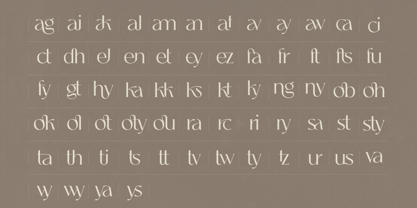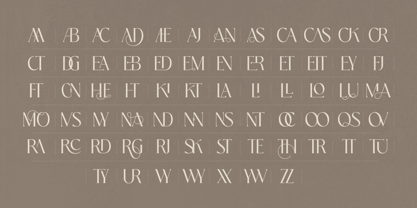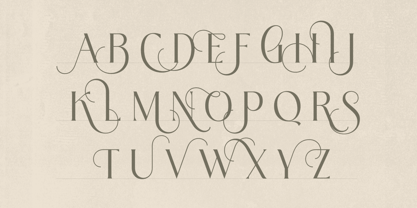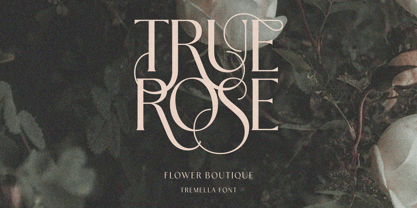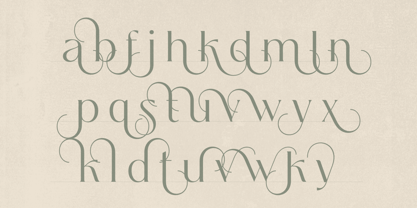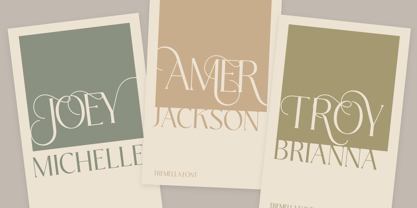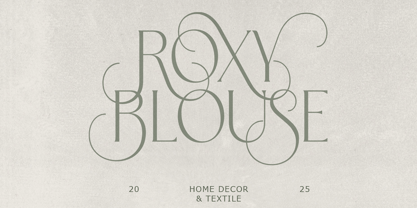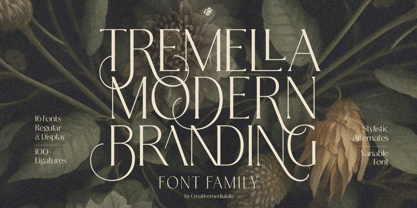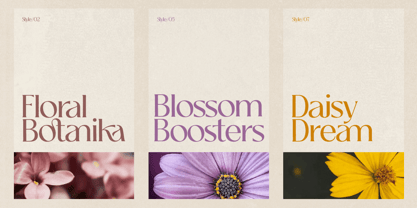
Tremella
by Creativemedialab
The Tremella Font Family was designed by Kadek Mahardika and published by Creativemedialab. Tremella contains 17 styles and family package options. More about this family
Tremella - Modern Serif Font
a serif font with a modern twist. It has a clean, simple look, but still carries that elegant charm that makes your design feel special without trying too hard.
I designed Tremella to be versatile, something you can drop into a logo, a magazine title, product packaging, or even a social media post, and it just works.
Play around with uppercase letters, insert alternates between to add a little flair and personality.
What makes Tremella fun to use is the set of 100+ ligatures included. They give your text a natural flow and make every word look a bit more custom. It’s one of those fonts that feels polished but still flexible, so you can go minimal, classy, or even playful depending on how you style it.
If you’re working on a brand, a stylish logo, or just want your typography to stand out, Tremella is a solid choice that won’t let you down.